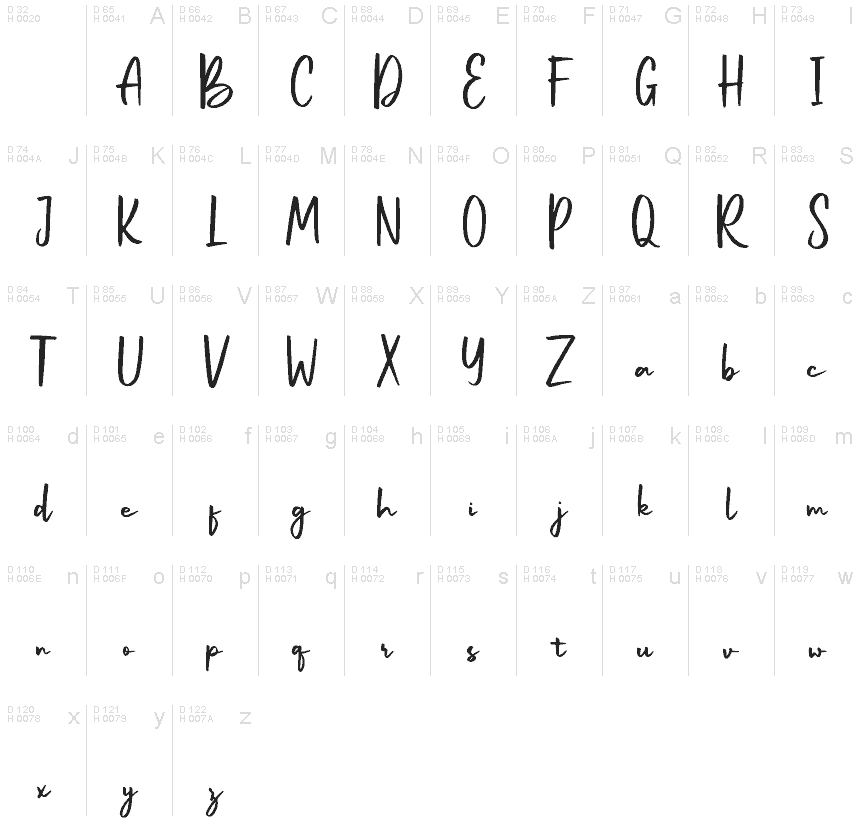
BelleAmourFree-Regular
Belle Amour font is a free handwritten light font that offers elegance, modernity, and romantic flair. The letters’ smooth curves and expressive style give it a brush script appearance. They also provide it with flexibility and allow users to express different tones while maintaining legibility.
Use Belle Amour for all artwork related to special events: weddings, parties, birthdays. Printed work like banners, brochures, posters, invitations will all look fantastic! It’s equally an amazing pick for digital projects of websites and mobile apps or social media platforms like Instagram.